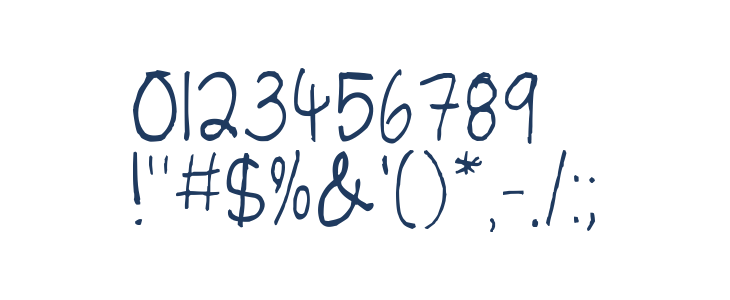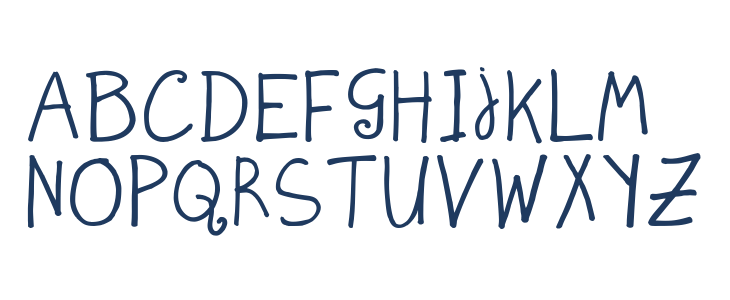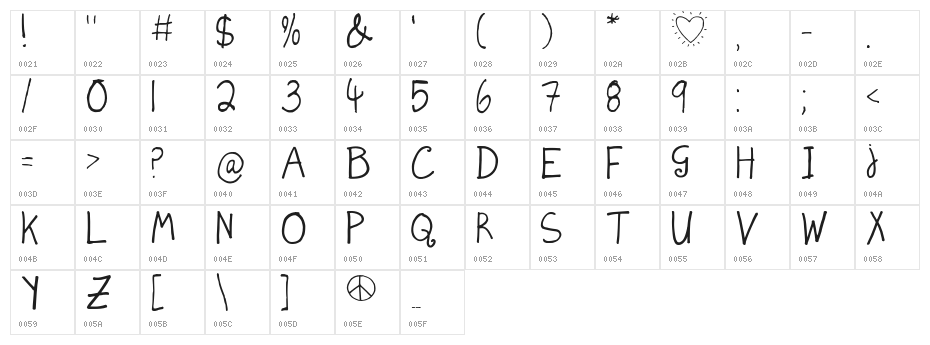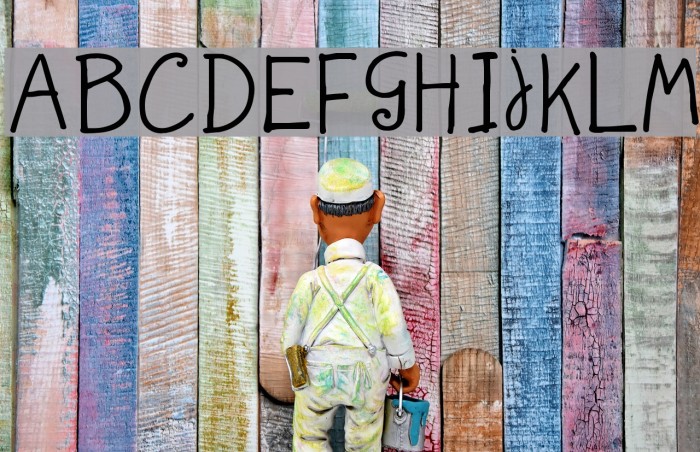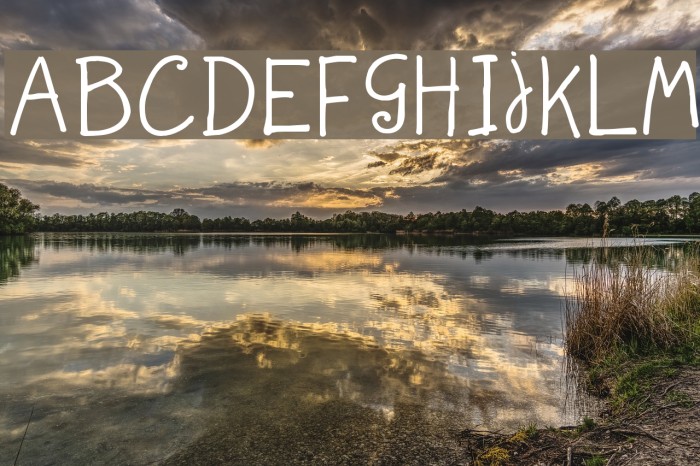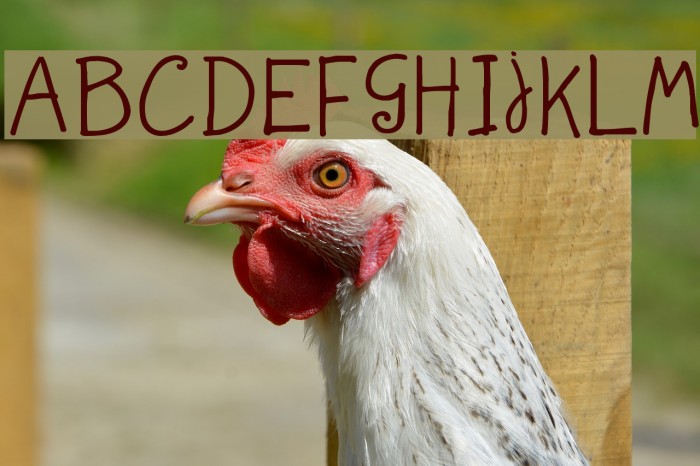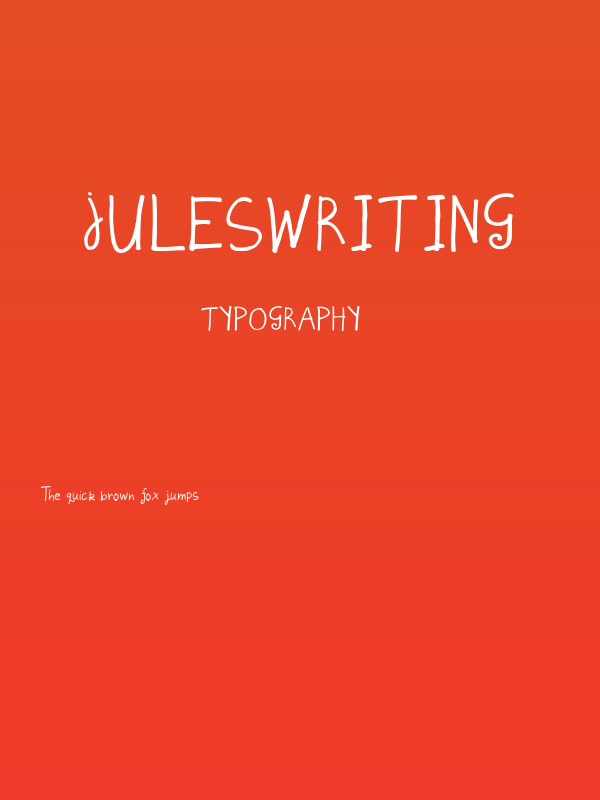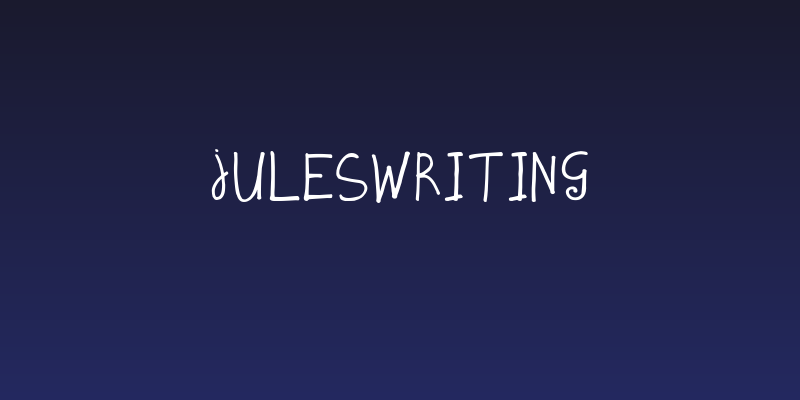
juleswriting Font
juleswriting Description
This font exhibits a playful and casual handwritten style, characterized by its irregular and organic letterforms. The uppercase letters maintain a consistent height with slight variations in width, while the lowercase letters display a more pronounced variation in size and shape, adding to the font's informal charm. The numerals are bold and slightly exaggerated, complementing the overall whimsical aesthetic. Special characters are creatively integrated, maintaining the font's unique personality. The strokes are uneven, contributing to a lively and dynamic appearance, making it suitable for projects that require a personal touch.
| Proposed Projects | Ideal for greeting cards, children's books, personal blogs, and creative branding projects. |